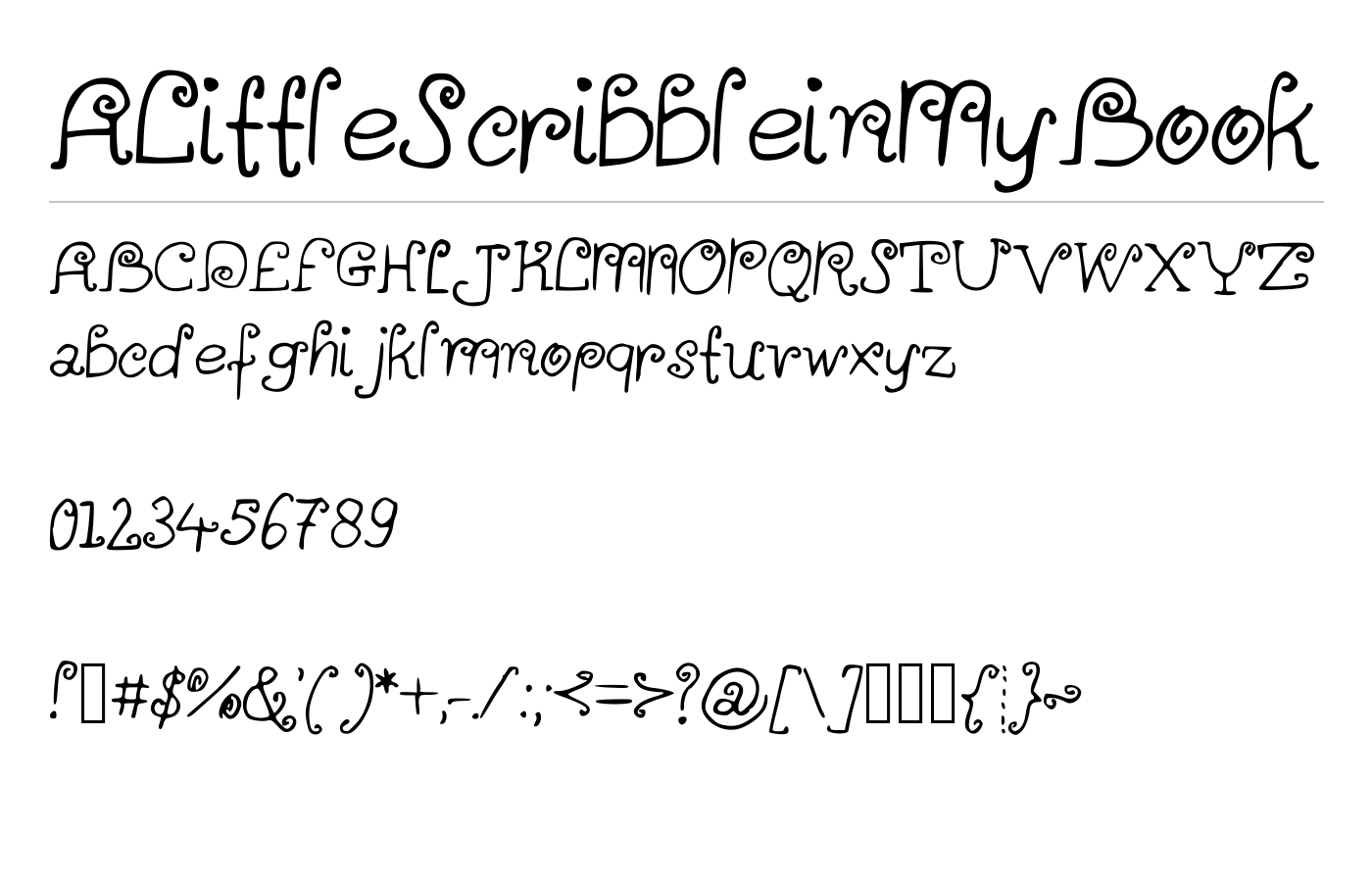
ALittleScribbleinMyBook is a whimsical, playful serif font with curly, hand-drawn strokes that give it a charming, informal feel. Its light weight and quirky letterforms make it perfect for creative projects, children’s books, and artistic branding where a friendly, unique personality is desired. This font works best in headlines and decorative text, adding a touch of fun and individuality to any design.
ALittleScribbleinMyBook Font
About ALittleScribbleinMyBook Font